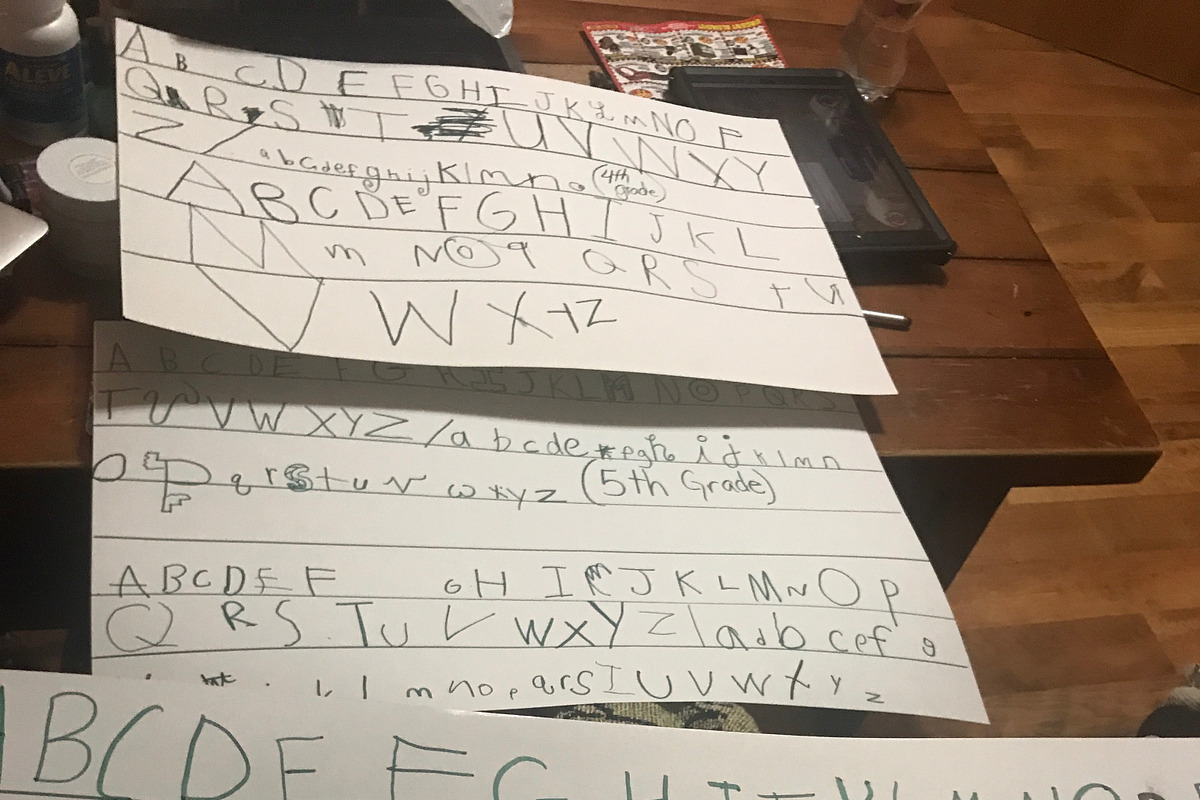
Gator - A font BY kids FOR kids
Gator - A font BY kids FOR kids by OnTheSpotStudio is a font selected for branding, posters, packaging, typography.
Why Gator - A font BY kids FOR kids is worth a look
Gator - A font BY kids FOR kids by OnTheSpotStudio fits naturally into Branding, posters, packaging, typography.